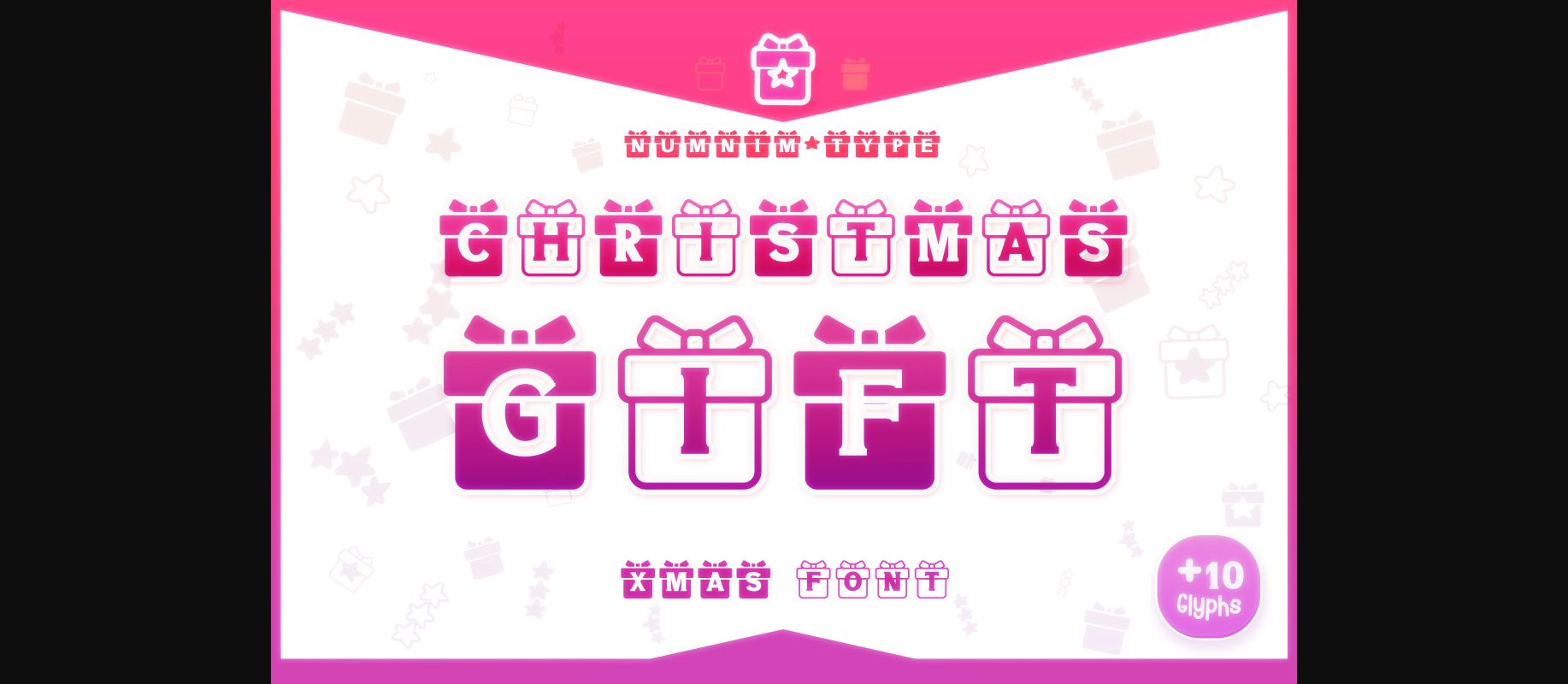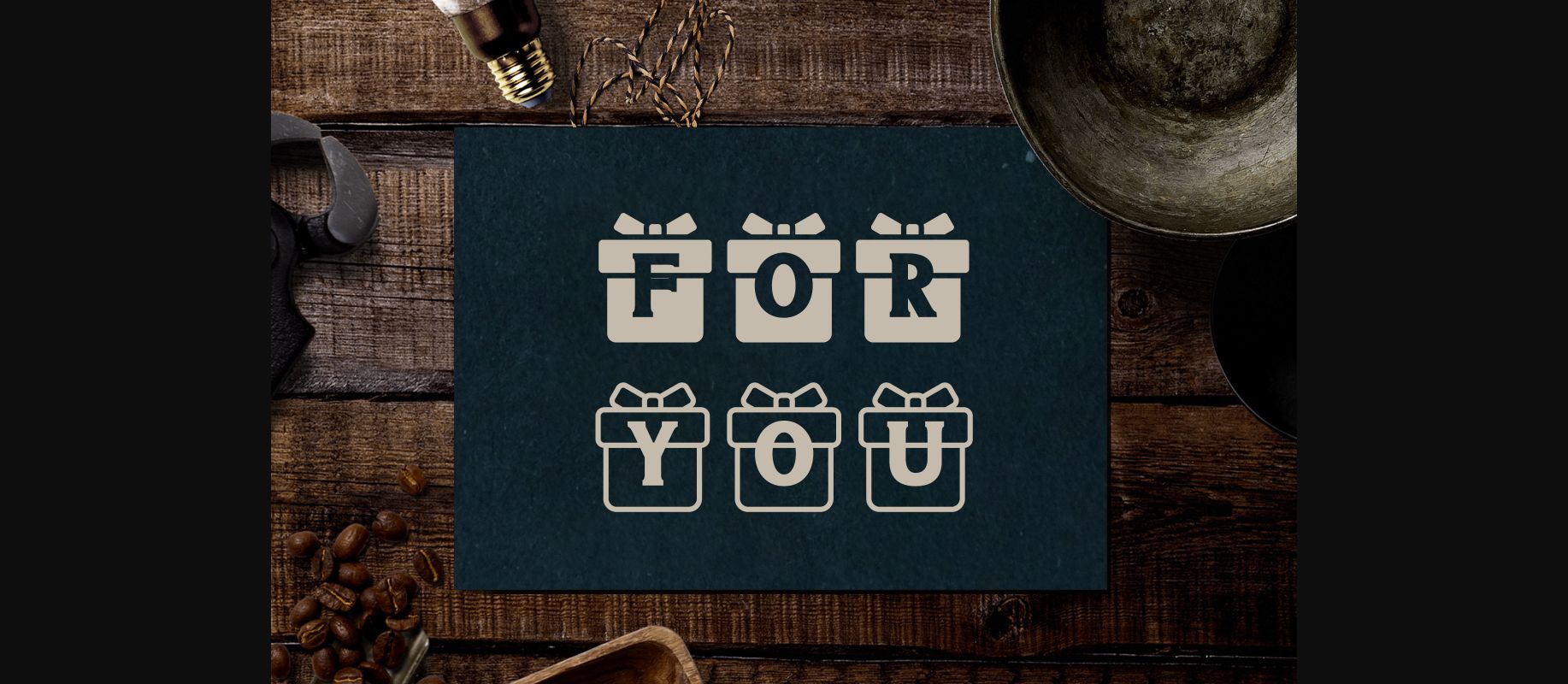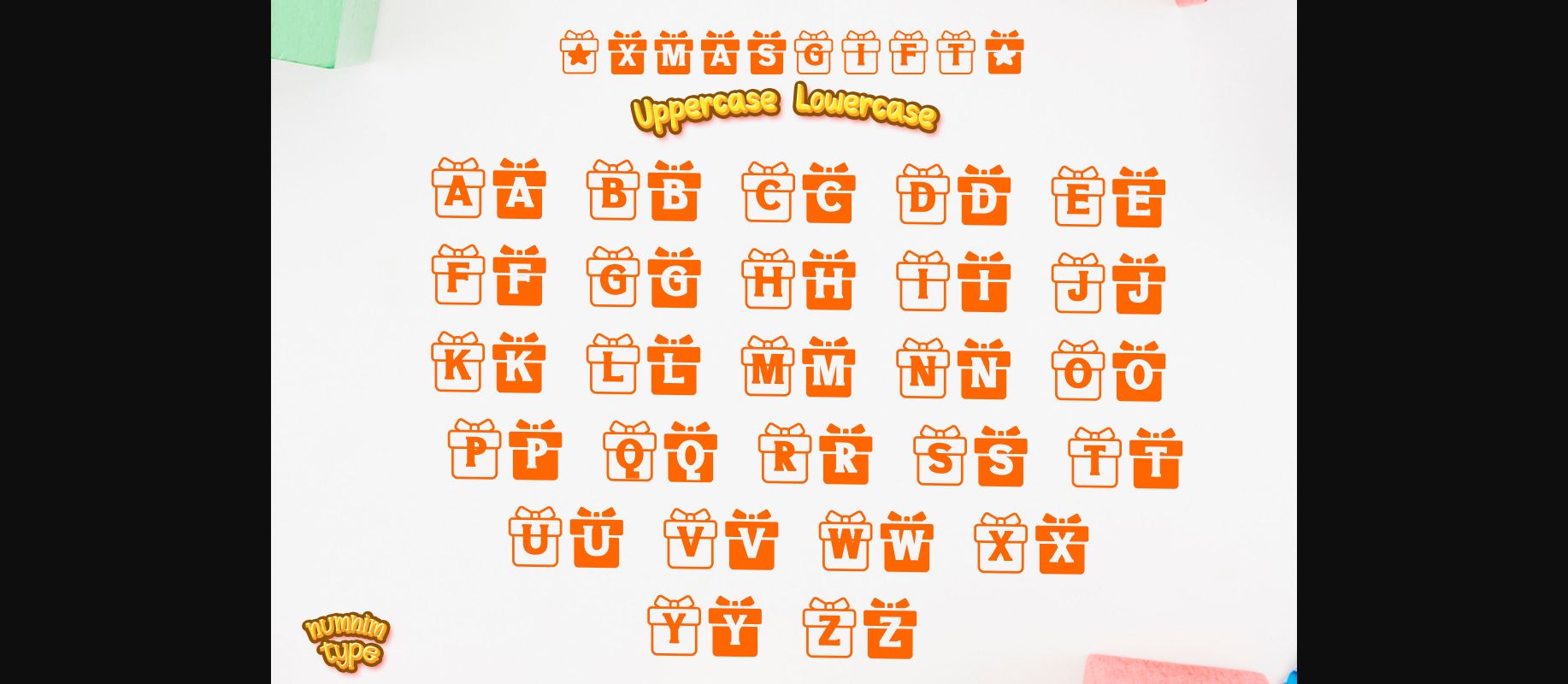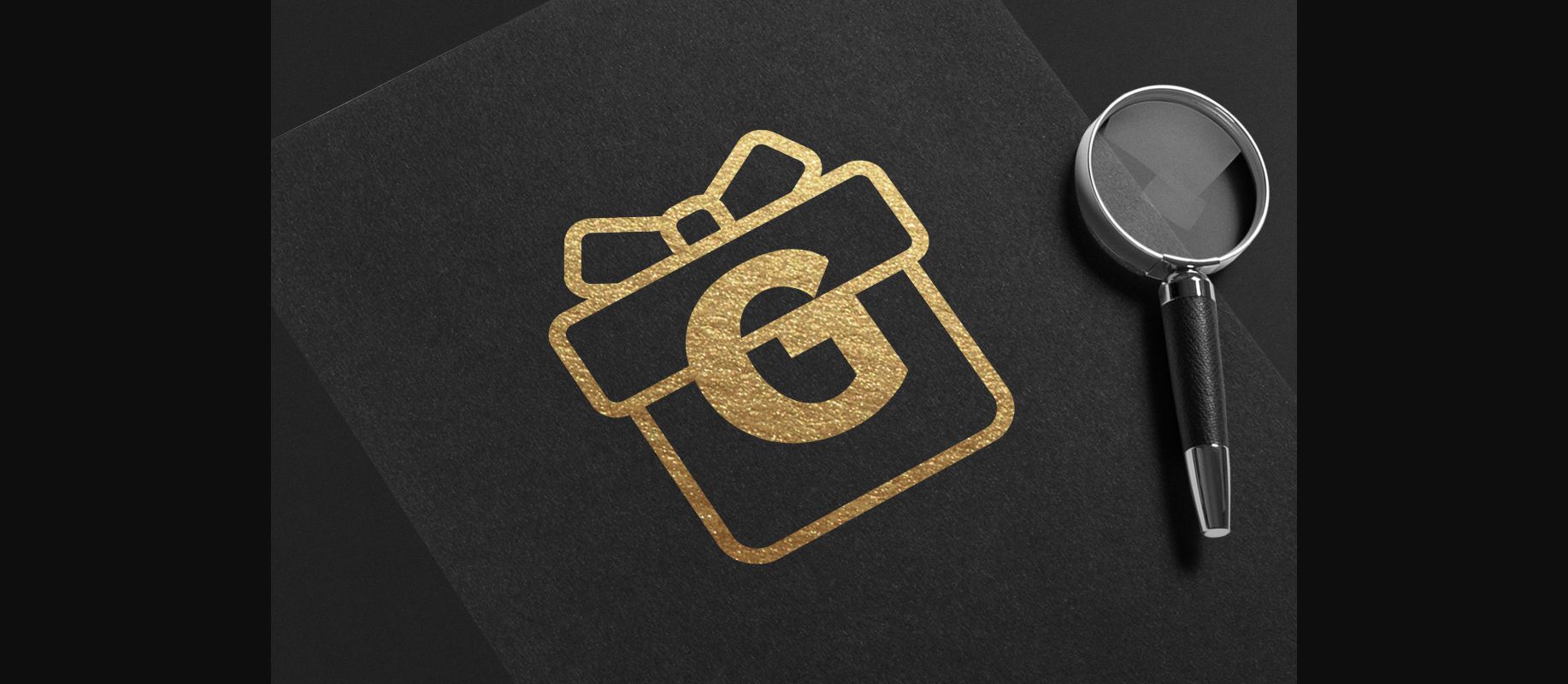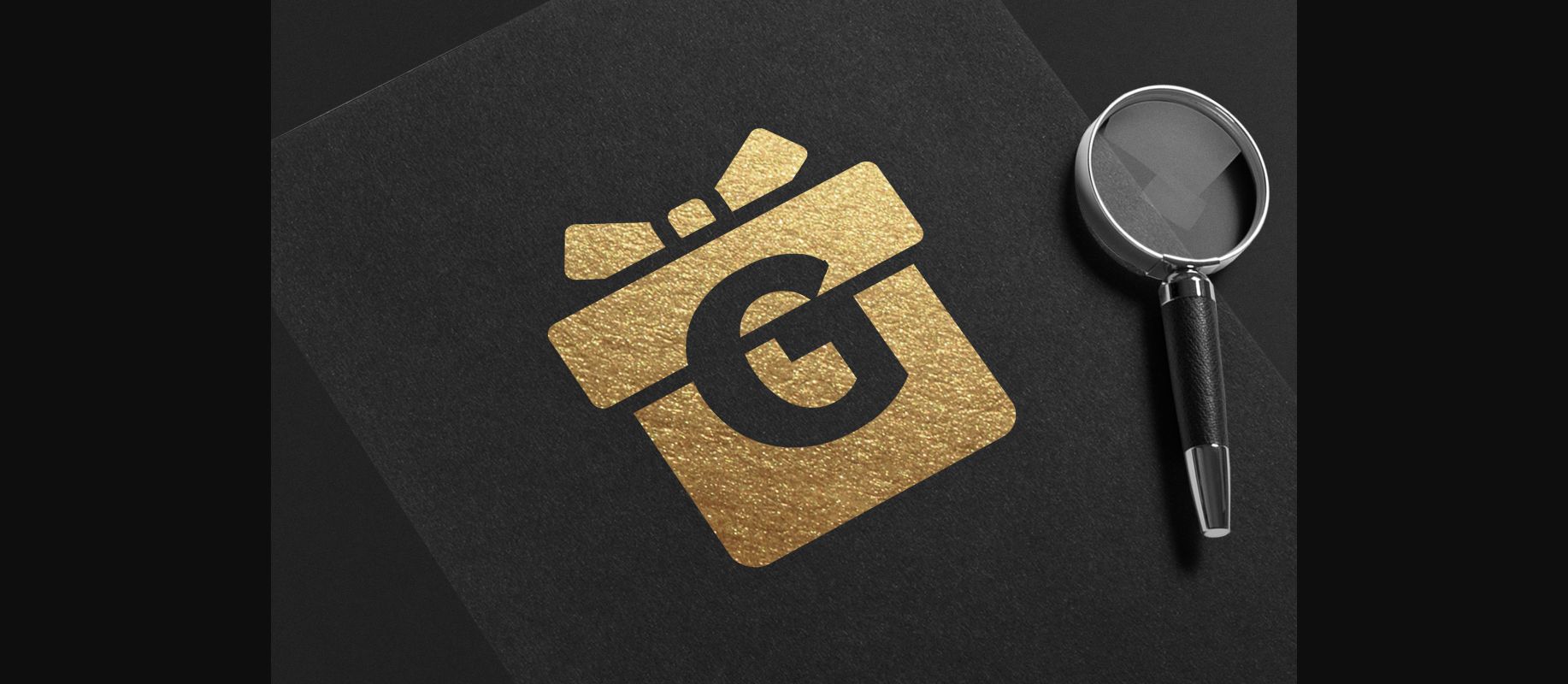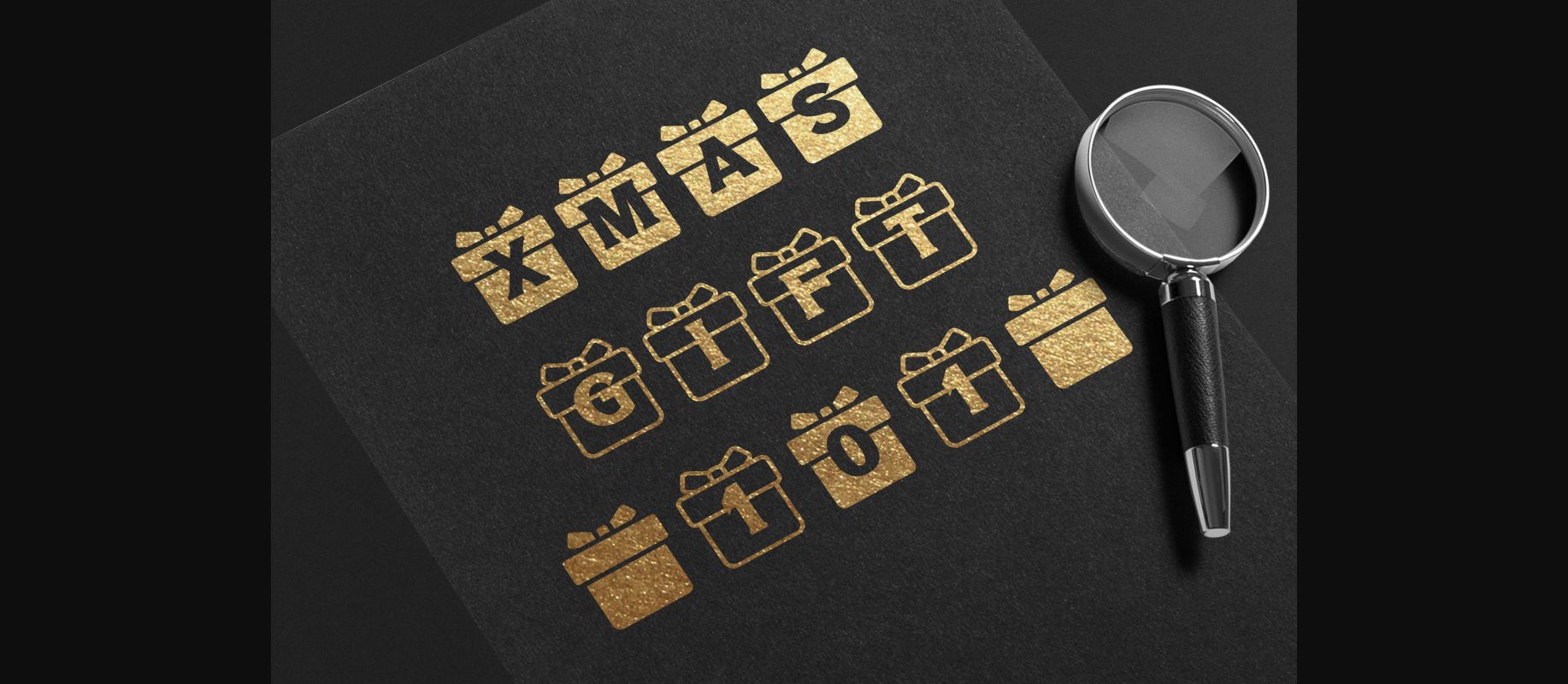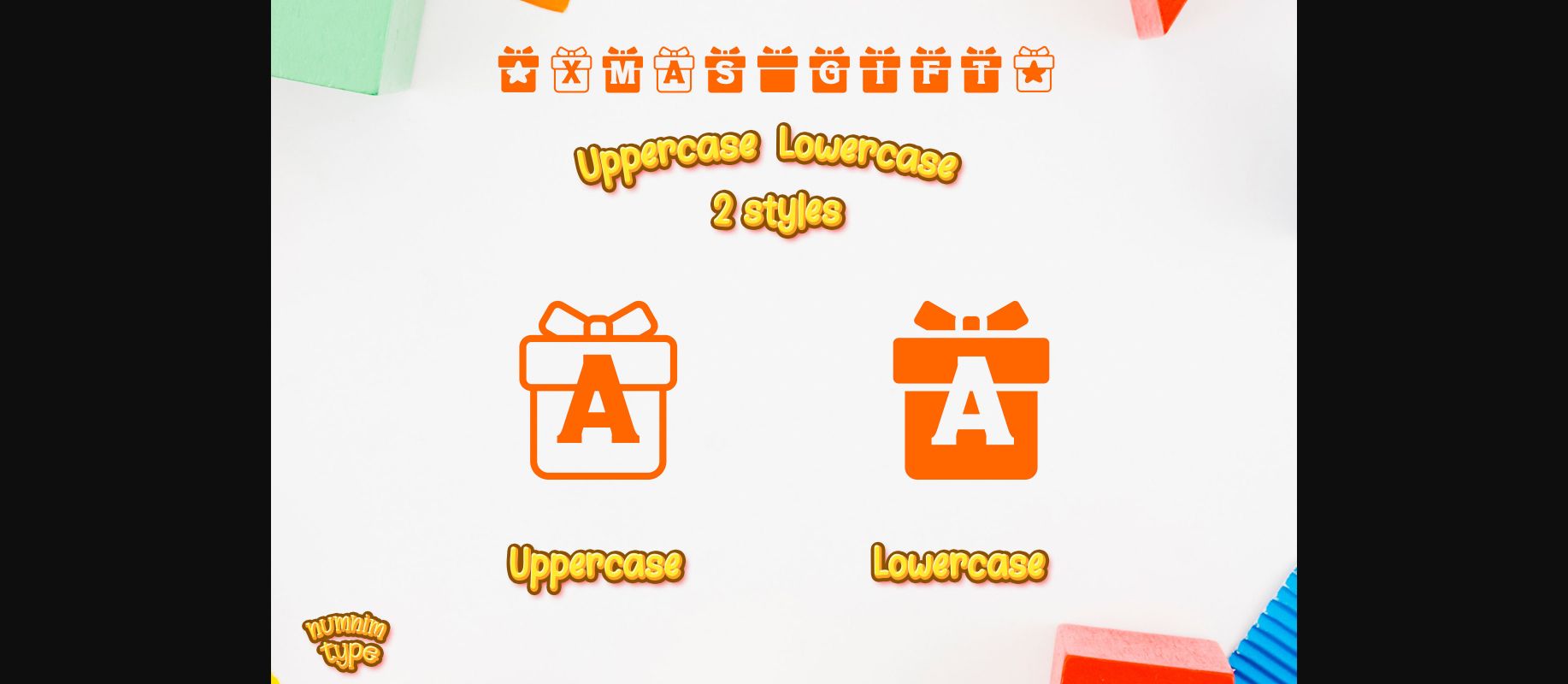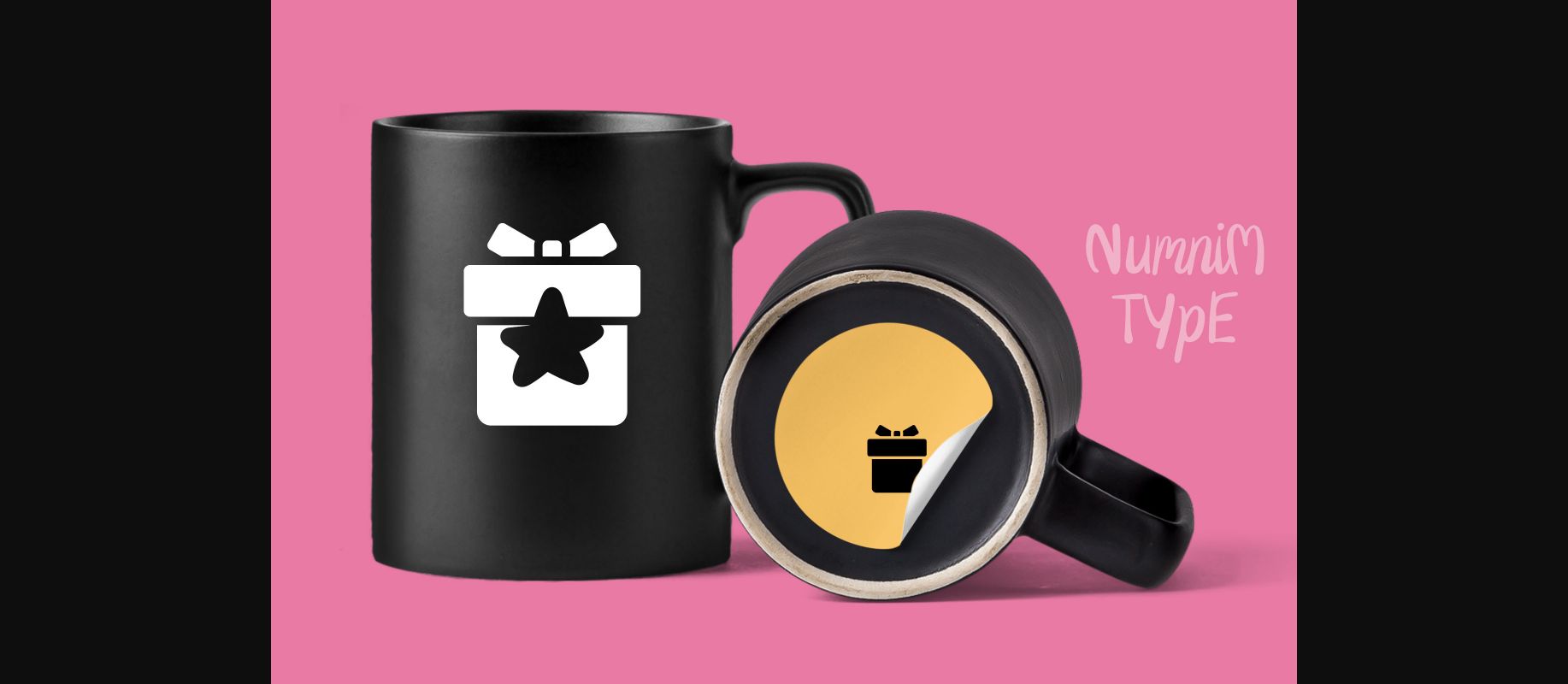
Christmas Gift Font
About Christmas Gift Font
Christmas Gift is a warm and festive decorative font. It is PUA encoded which means you can access all of the amazing glyphs and ligatures with ease!